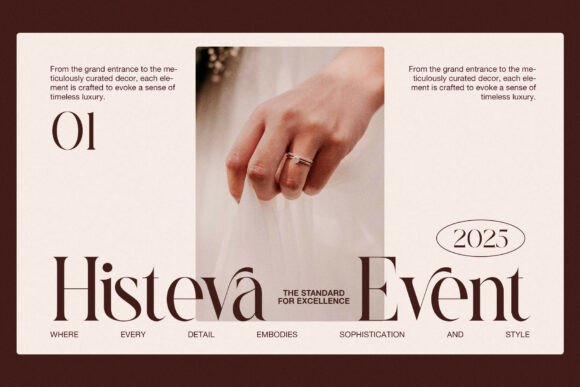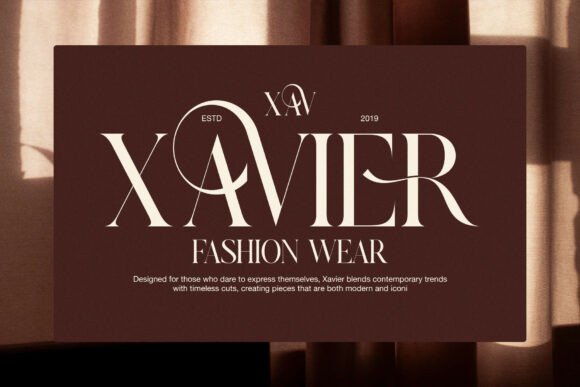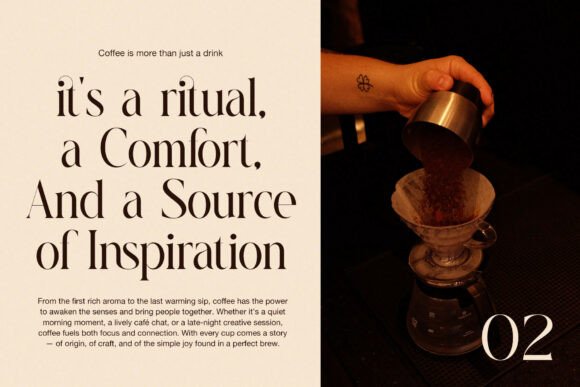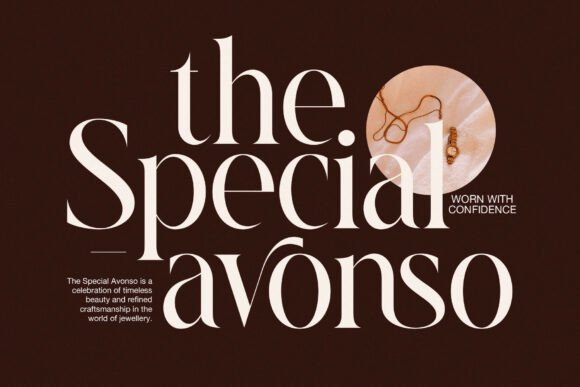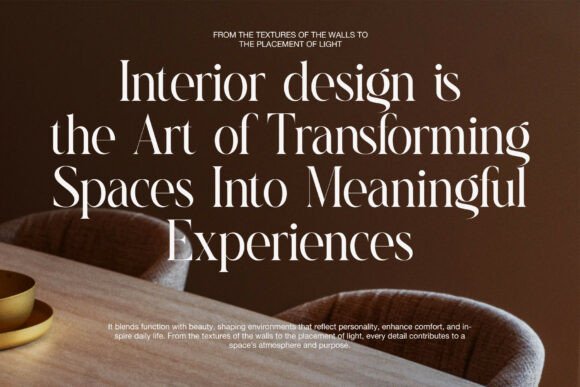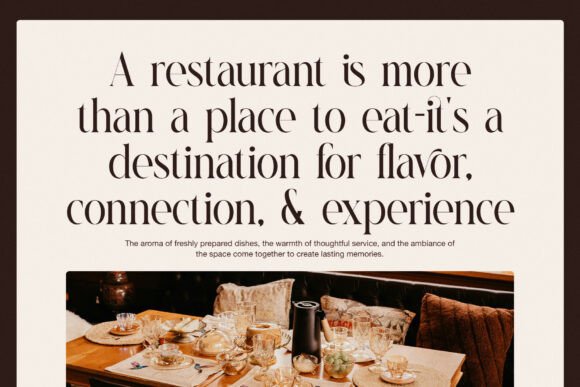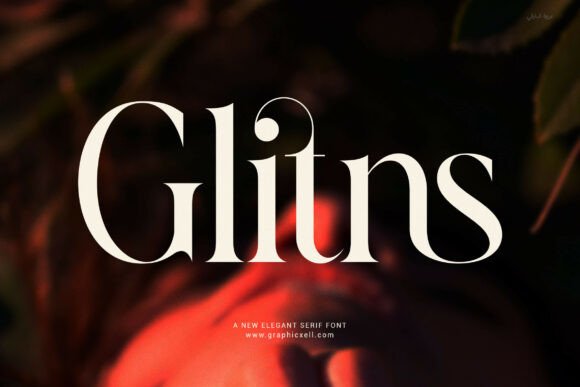
Introducing Glitns Font: Elevate Your Design with Luxury and Clarity
In the world of typography, the right font can make all the difference in transforming a design from ordinary to extraordinary. For designers and crafters seeking a typeface that embodies luxury, elegance, and functionality, Glitns Font is an exceptional choice. This refined and contemporary serif font is meticulously designed to bring a touch of sophistication to any creative project, making it ideal for high-end branding, editorial layouts, product packaging, and upscale web design.
The Essence of Glitns Font
Glitns Font is characterized by its balanced proportions and smooth curves, which seamlessly blend elegance with readability. The clean, proportional letterforms are crafted to ensure that every word looks polished and refined, making it perfect for projects where presentation is paramount. Whether you’re designing a logo for a boutique brand, crafting a polished magazine spread, or creating engaging content for a high-end website, Glitns adds a professional touch that resonates with modern aesthetics.
Key Features of Glitns Font
- Balanced Proportions: Each letterform in Glitns is carefully designed to ensure harmony and balance, contributing to a cohesive look that enhances any design.
- Smooth Curves: The smooth, flowing curves of Glitns bring a sense of luxury and sophistication, elevating the overall appearance of your content.
- Stylish Ligatures: With a variety of stylish ligatures, Glitns allows you to add a creative flair to your text, making it not only legible but also beautifully unique.
- Elegant Serif Design: The serif design of Glitns adds a classic touch to your designs, making it versatile for both digital and print applications.
Applications of Glitns Font
The versatility of Glitns Font makes it suitable for a wide range of applications. Here are some of the best ways to utilize this elegant typeface:
- High-End Branding: Create a lasting impression with logos and brand identities that exude luxury and sophistication.
- Editorial Layouts: Elevate your magazine spreads, newspapers, and books with a refined and readable typeface.
- Product Packaging: Add a touch of elegance to your product packaging, making your brand stand out on store shelves.
- Upscale Web Design: Enhance your website’s aesthetic appeal with a font that combines beauty and legibility, providing an excellent user experience.
Why Choose Glitns Font?
Glitns Font stands out in the world of typography for several reasons:
- Unique Aesthetic: Its blend of modernity and classic elegance offers a unique aesthetic that can set your designs apart.
- Legibility: Despite its luxurious feel, Glitns maintains high legibility, ensuring your message is conveyed clearly.
- Versatility: Its adaptability across various mediums and applications makes it a valuable asset in any designer’s toolkit.
Glitns Font is more than just a typeface; it’s a design statement. With its refined features, elegant aesthetic, and versatile applications, it’s an excellent choice for designers and crafters aiming to add a touch of luxury and professionalism to their projects. Whether you’re working on high-end branding, editorial layouts, product packaging, or upscale web design, Glitns Font is poised to elevate your creative endeavors to new heights of sophistication and clarity.
Embrace the elegance and functionality of Glitns Font in your next project and experience the transformative power of typography.